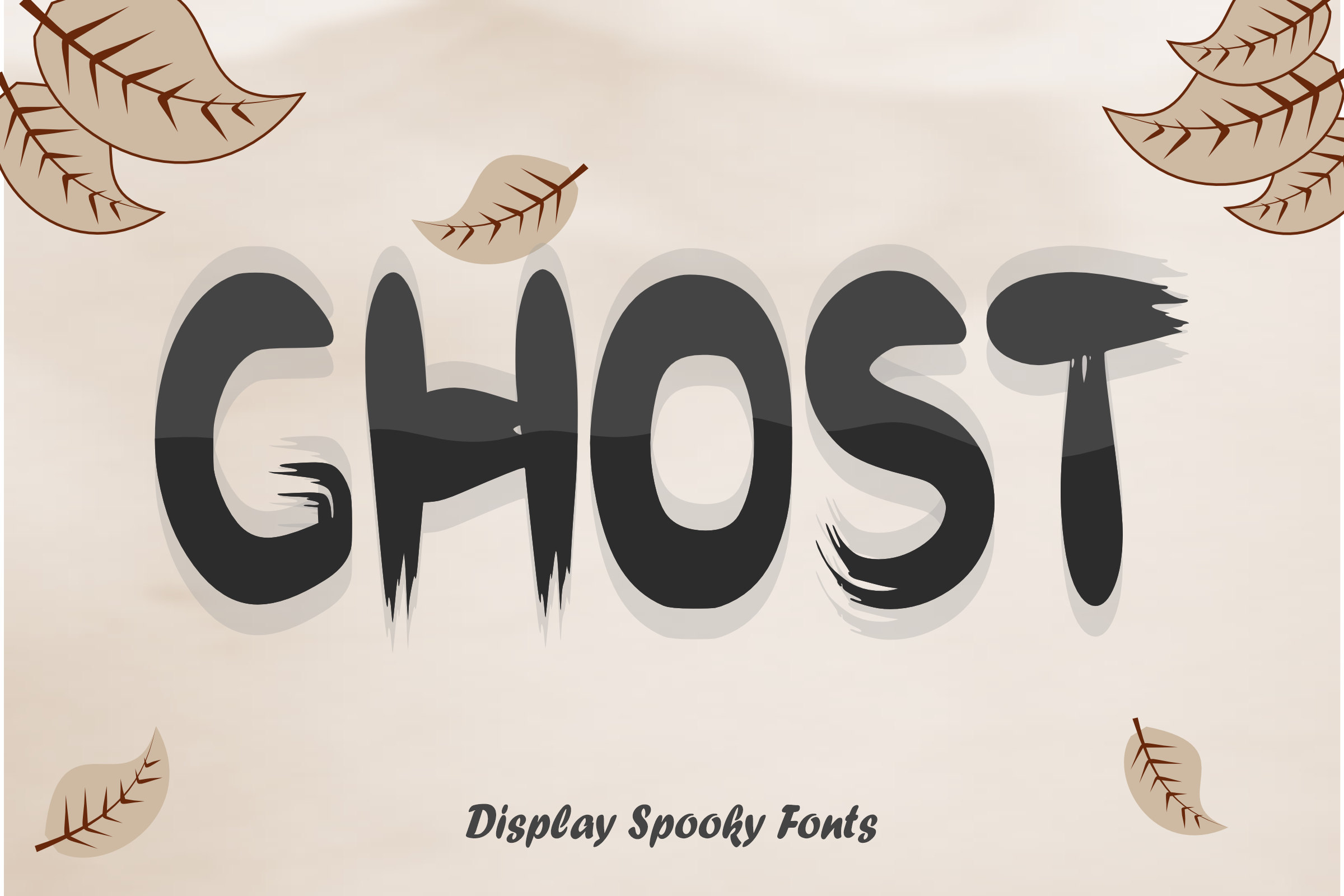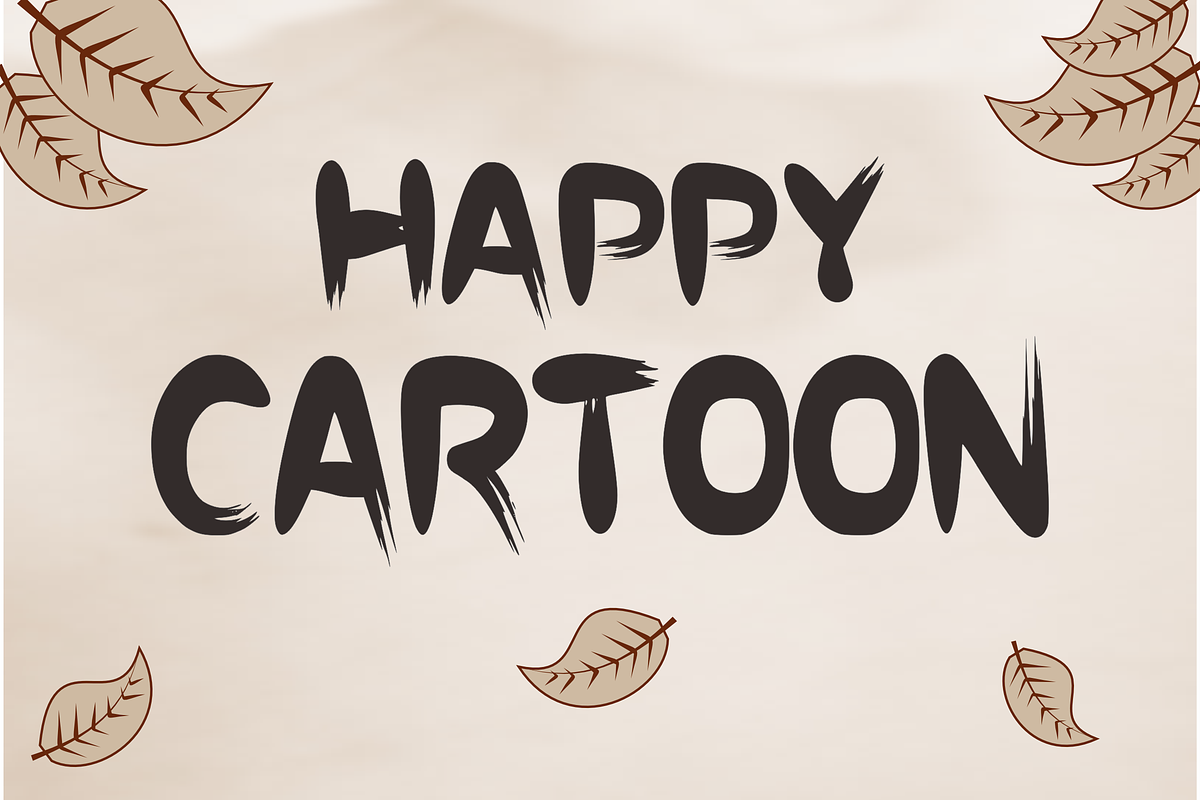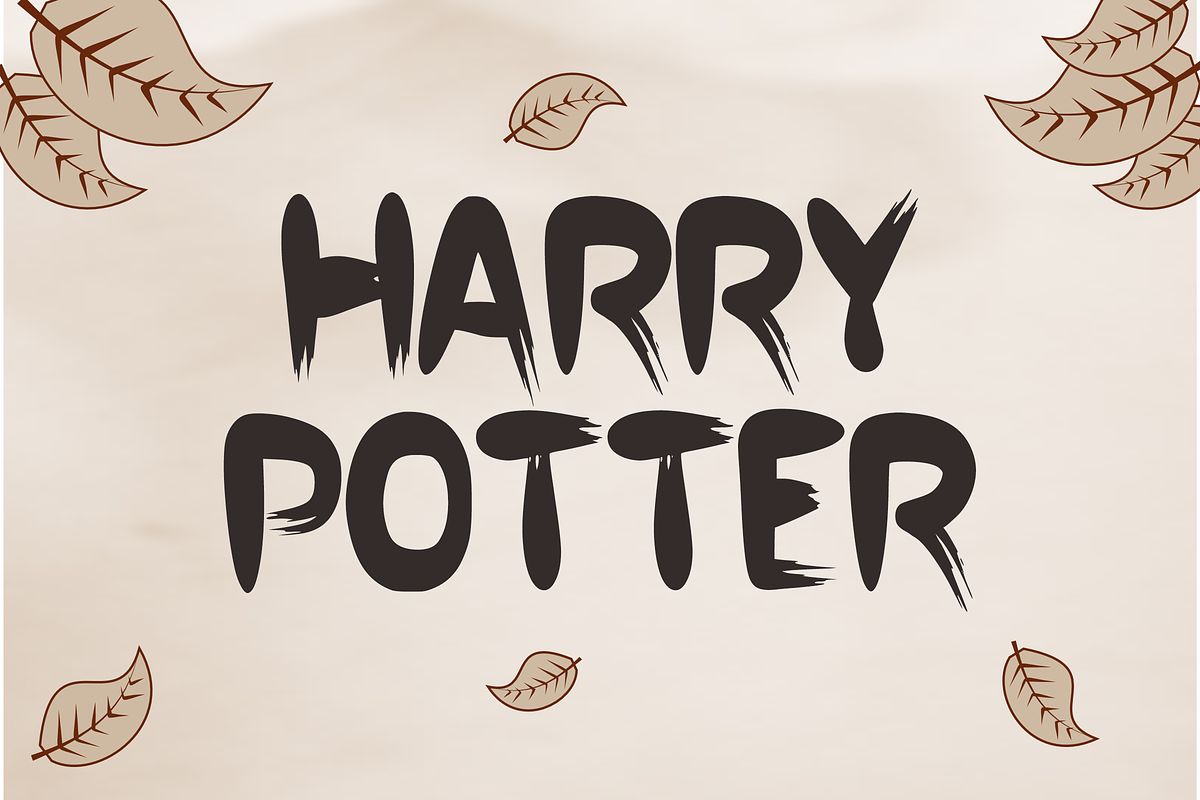
Ghost - Spooky Font Types
Ghost Font is a charming and spooky display font designed to perfectly encapsulate the spirit of Halloween. This display font is an ideal choice for creating eye-catching and spooky designs for posters, apparel, embroidery, crafts, and other spooky-themed applications.